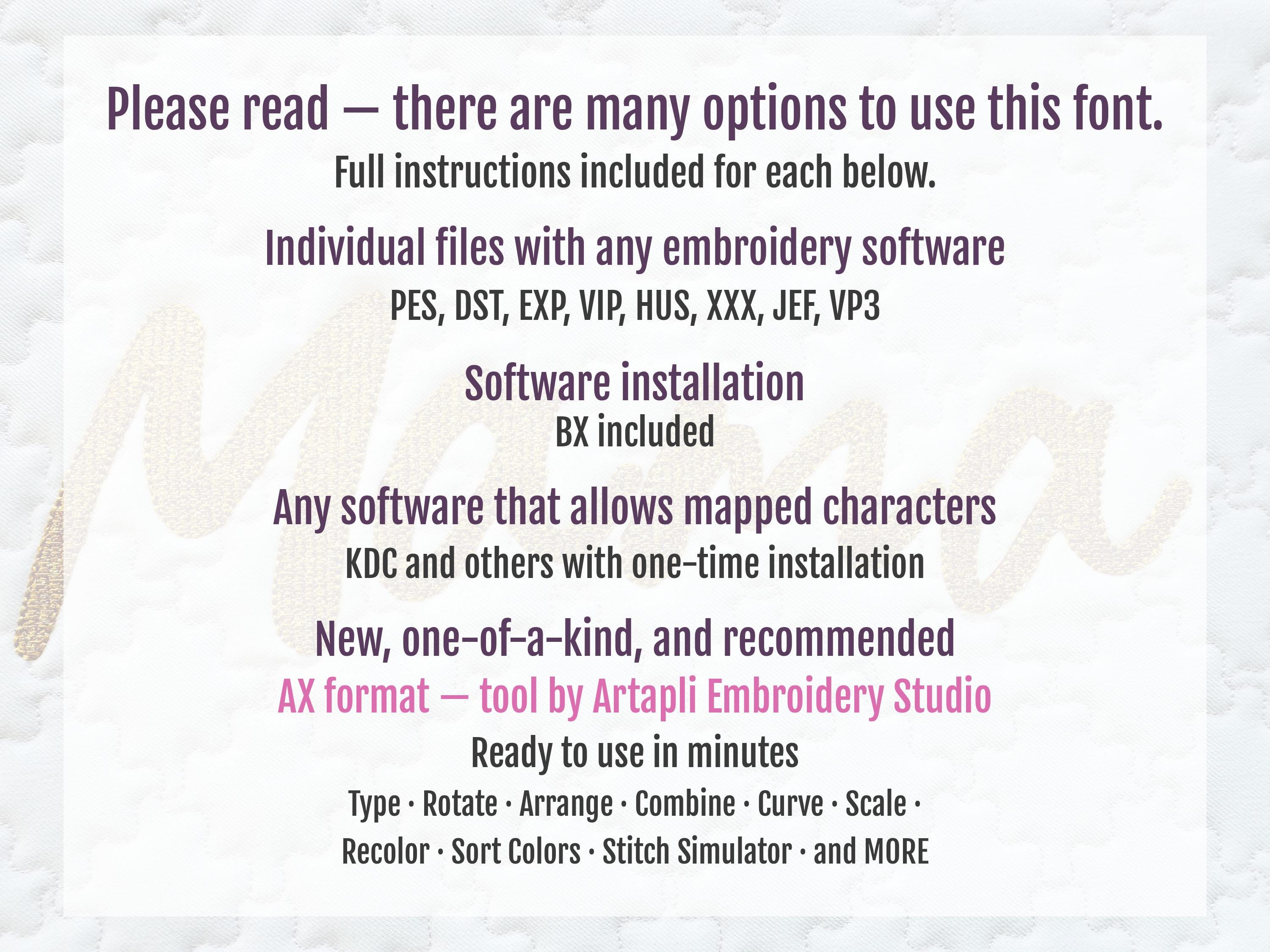
Glitter or Mylar Light Stitch Font alphabet monogram handwritten letters numbers machine embroidery designs sizes 0.7, 1, 1.5, 2, 2.5, 3 inch
Uppercase and lowercase letters Aa-Zz, numbers 0-9, and special marks & . , -
The font is transparent, the background fabric looks through. Stunning effect!
You can use HTV glitter vinyl or mylar with this design.